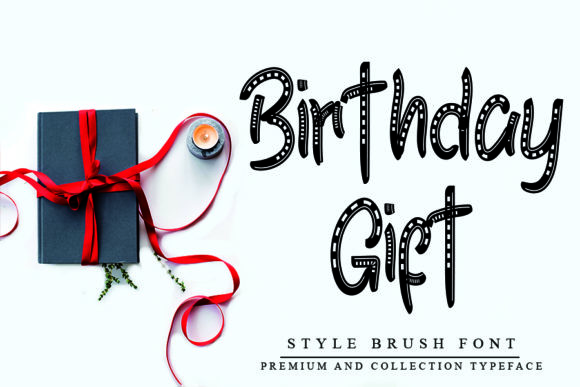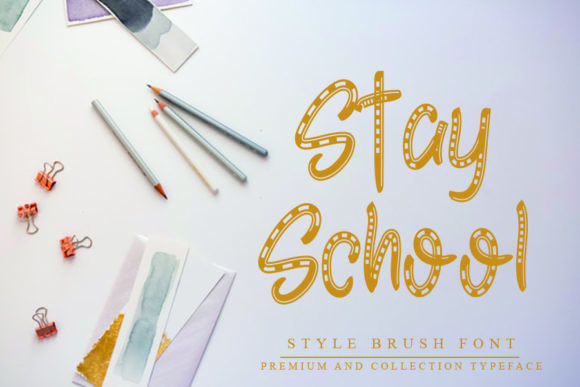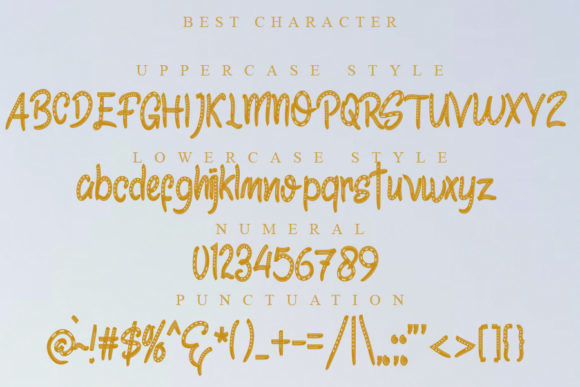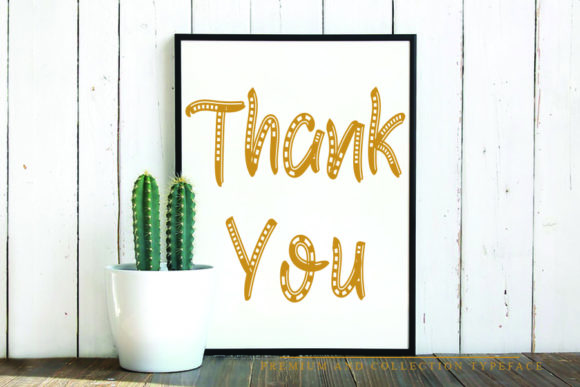
Introduction to Holla Rolla Font
Have you ever found yourself scrolling through your social media feed, stumbling upon a beautifully crafted design that leaves you wondering, ‘How did they do that?’ It’s moments like these that spark our creativity and inspire us to bring our own ideas to life. Whether you’re a seasoned designer or a DIY enthusiast, the right font can be the missing piece that turns your project into a true masterpiece.
That’s where the Holla Rolla Font comes in – a unique and captivating display font that’s perfect for adding a touch of elegance to your creative projects. With its high-quality design and transparent background, this font is a valuable resource for designers looking to elevate their work. From Instagram-worthy posts to calligraphy scripts for DIY projects, the Holla Rolla Font is sure to bring your ideas to life in a stunning way.
- Unique, modern design style suitable for a wide range of applications
Honest Review: Holla Rolla Font
I recently had the chance to try out the Holla Rolla Font, and I must say, it’s been a game-changer for my creative projects. The high quality and unique design make it an excellent addition to my design resource library.
One of the things I love about the Holla Rolla Font is its versatility. I can use it for both digital and print projects, and it always looks great. The transparent background is also a huge plus, as it allows me to easily place the text over any background image or color.
- Unique and stylish design
- High-quality font files
- Transparent background for easy text placement
- Only available in a few weights and styles, which may limit its use in some projects
- No bold or italic versions available
Overall, I’m really impressed with the Holla Rolla Font. It’s a great addition to any design resource library, and I highly recommend it to anyone looking for a high-quality, unique font.
Tips for Getting the Most Out of Holla Rolla Font
To get the most out of the Holla Rolla Font, use it with a transparent background to create a clean and modern look. Experiment with different font sizes and colors to add visual interest to your design.
Common Use Cases for Holla Rolla Font
The Holla Rolla Font is commonly used for a wide range of creative projects, including social media graphics, presentations, reports, and more. It’s also a great choice for designers who want a high-quality font with a transparent background.
Q: What is the recommended font size for optimal readability with the Holla Rolla Font?
The recommended font size for optimal readability with the Holla Rolla Font is between 12pt and 24pt, depending on the design application and intended audience. However, it’s essential to experiment with different font sizes to find the perfect balance for your specific project.